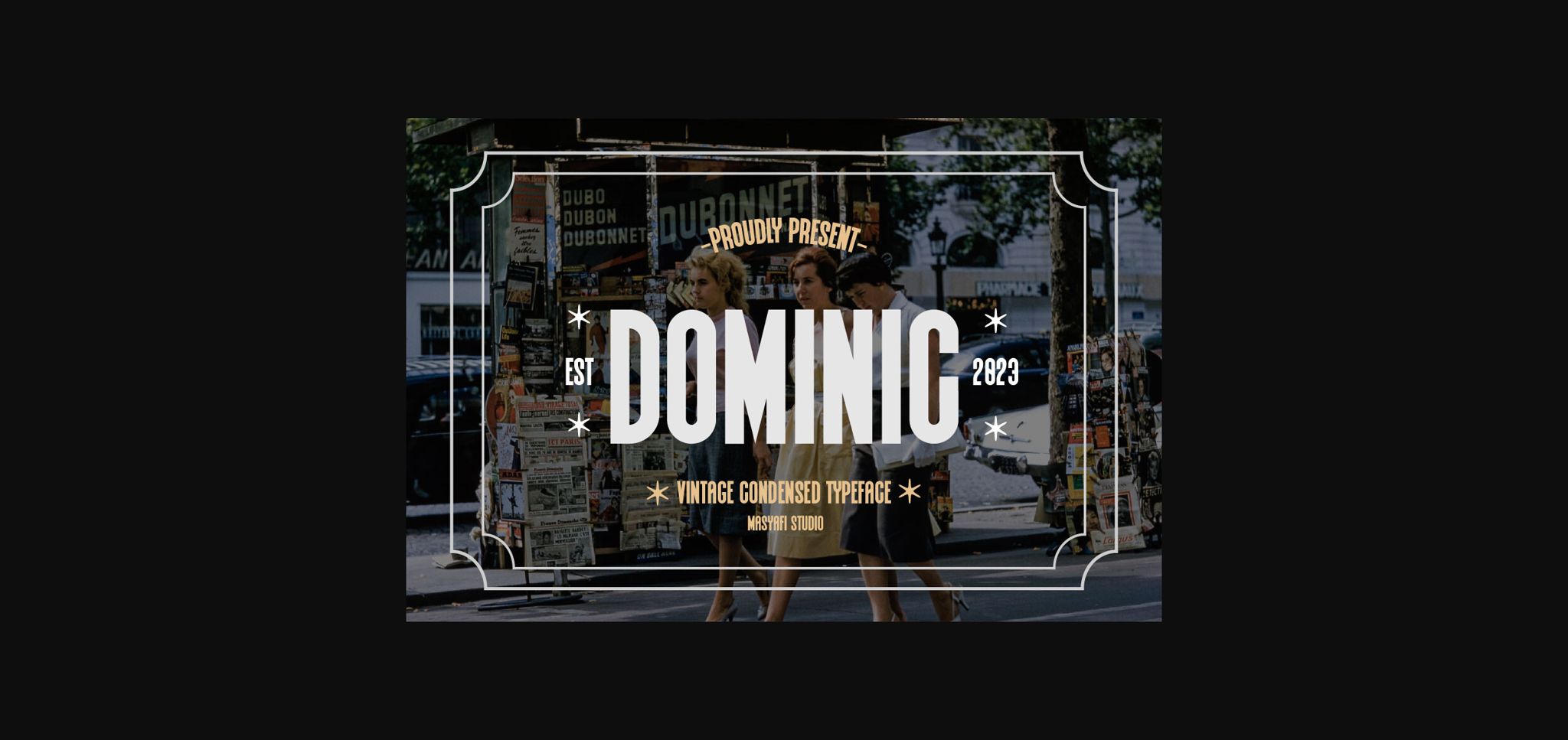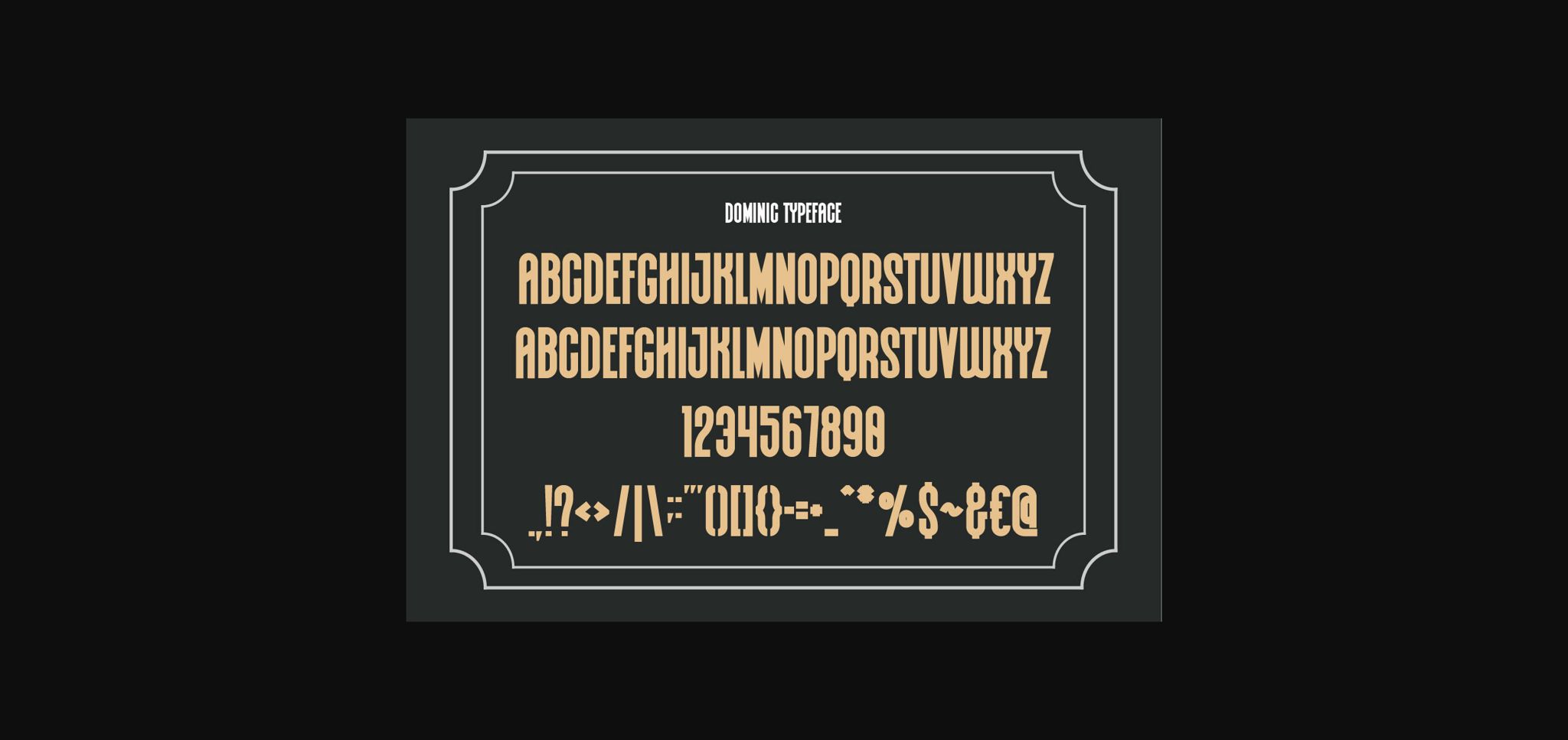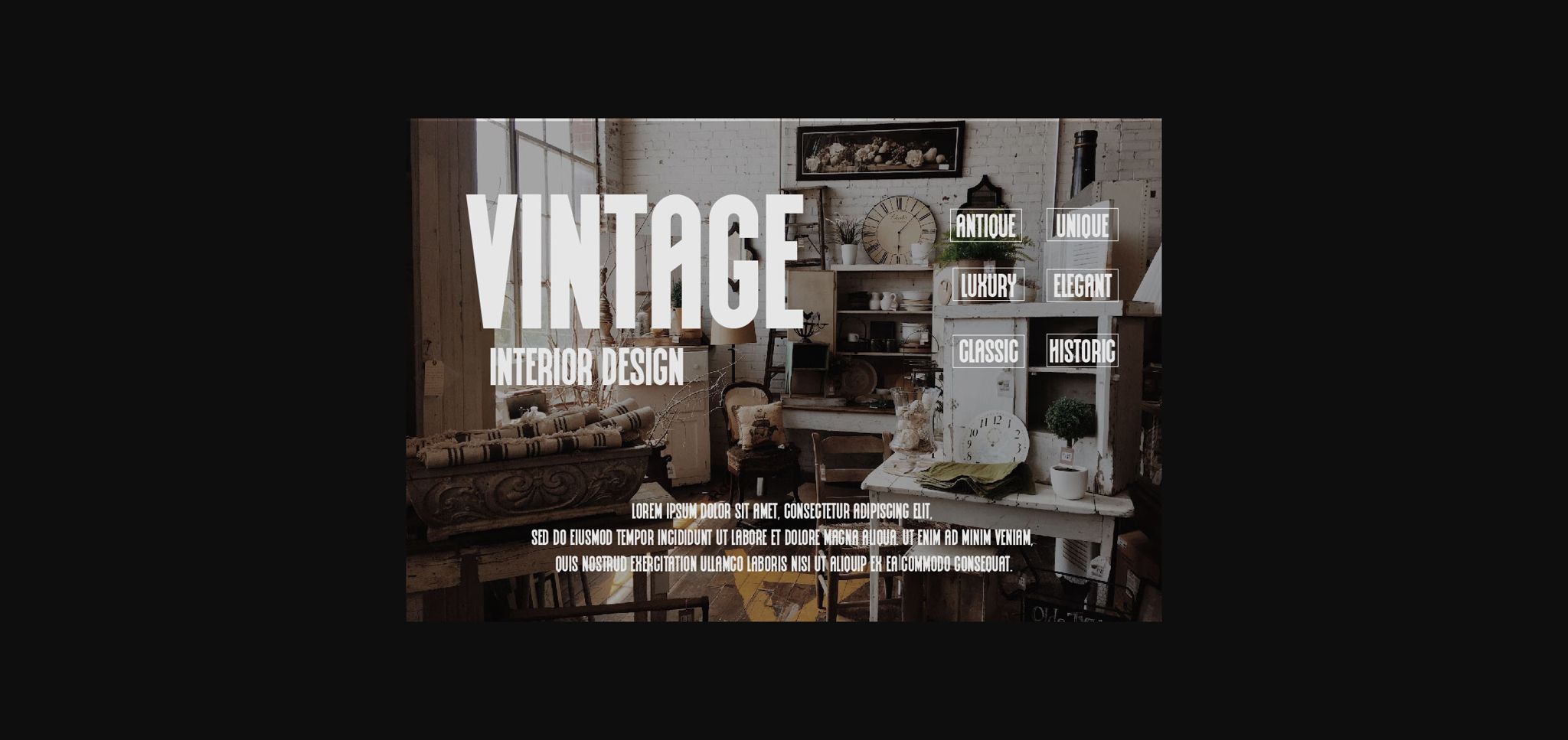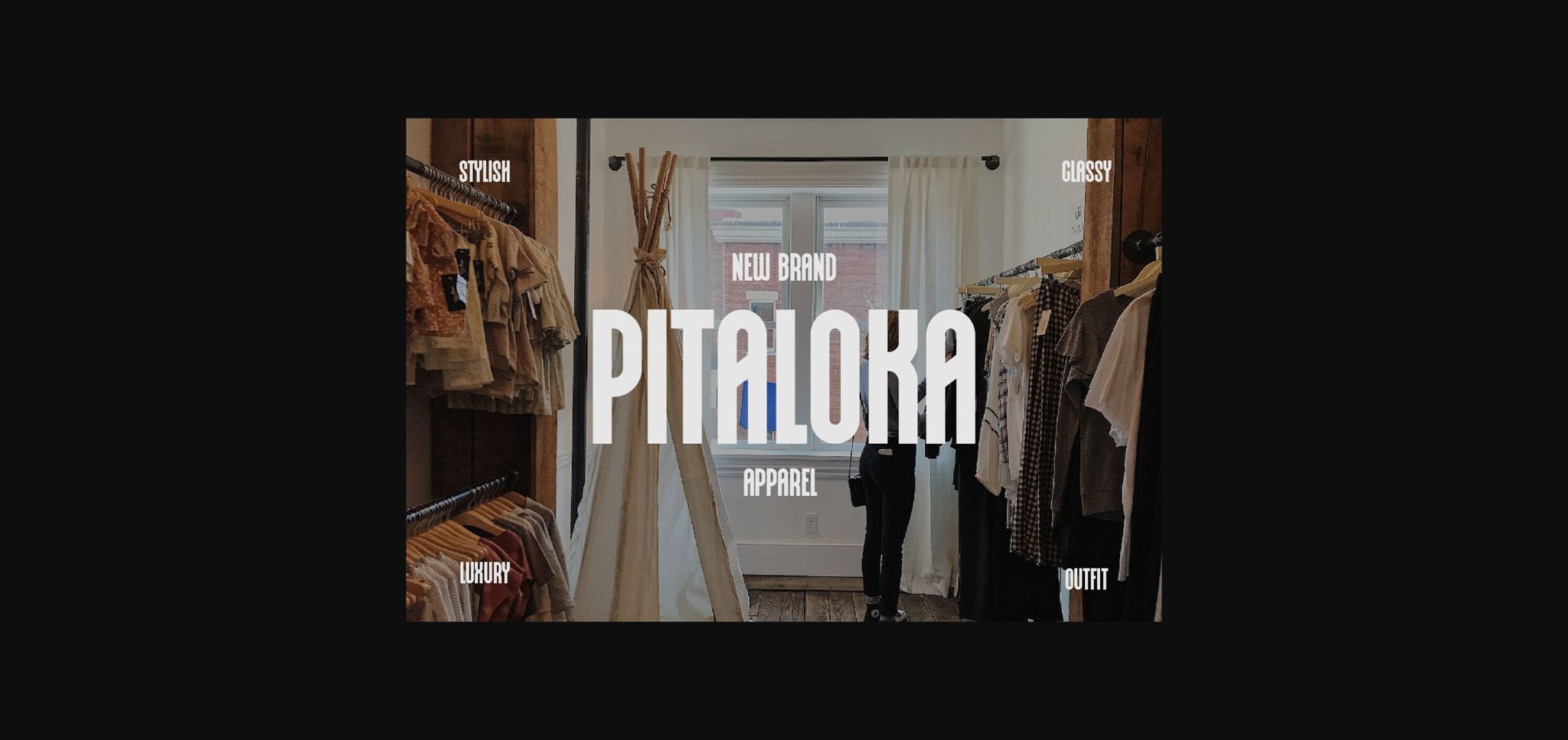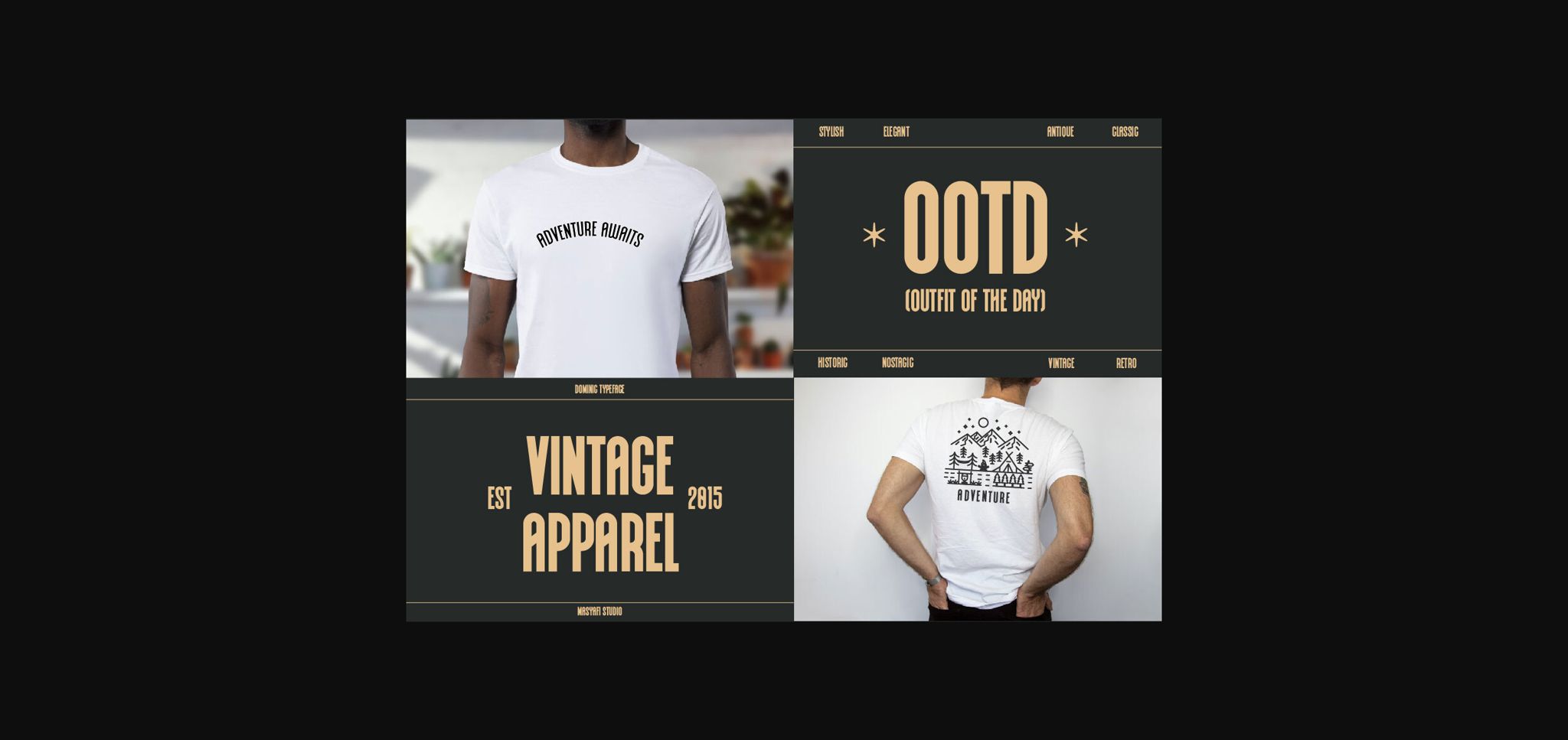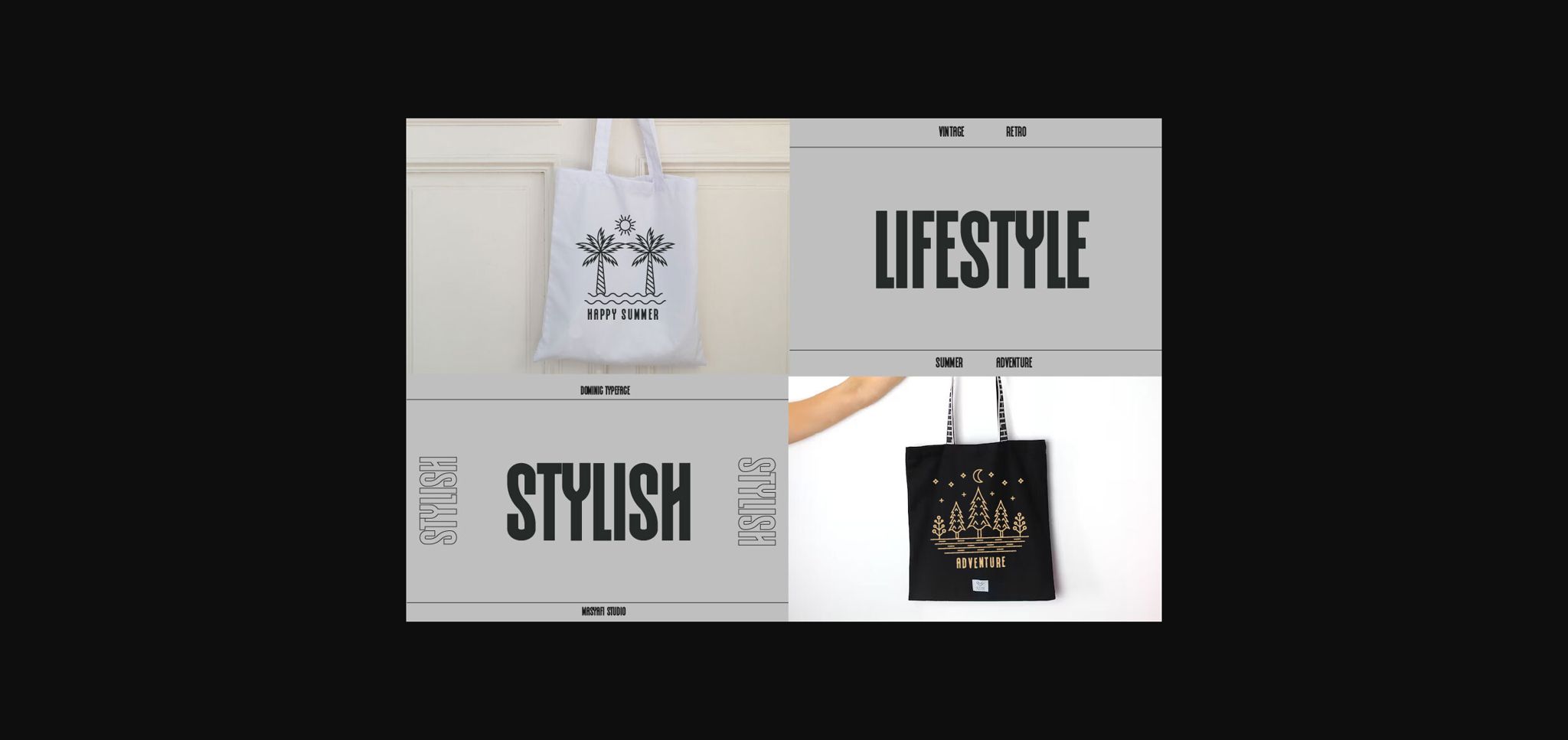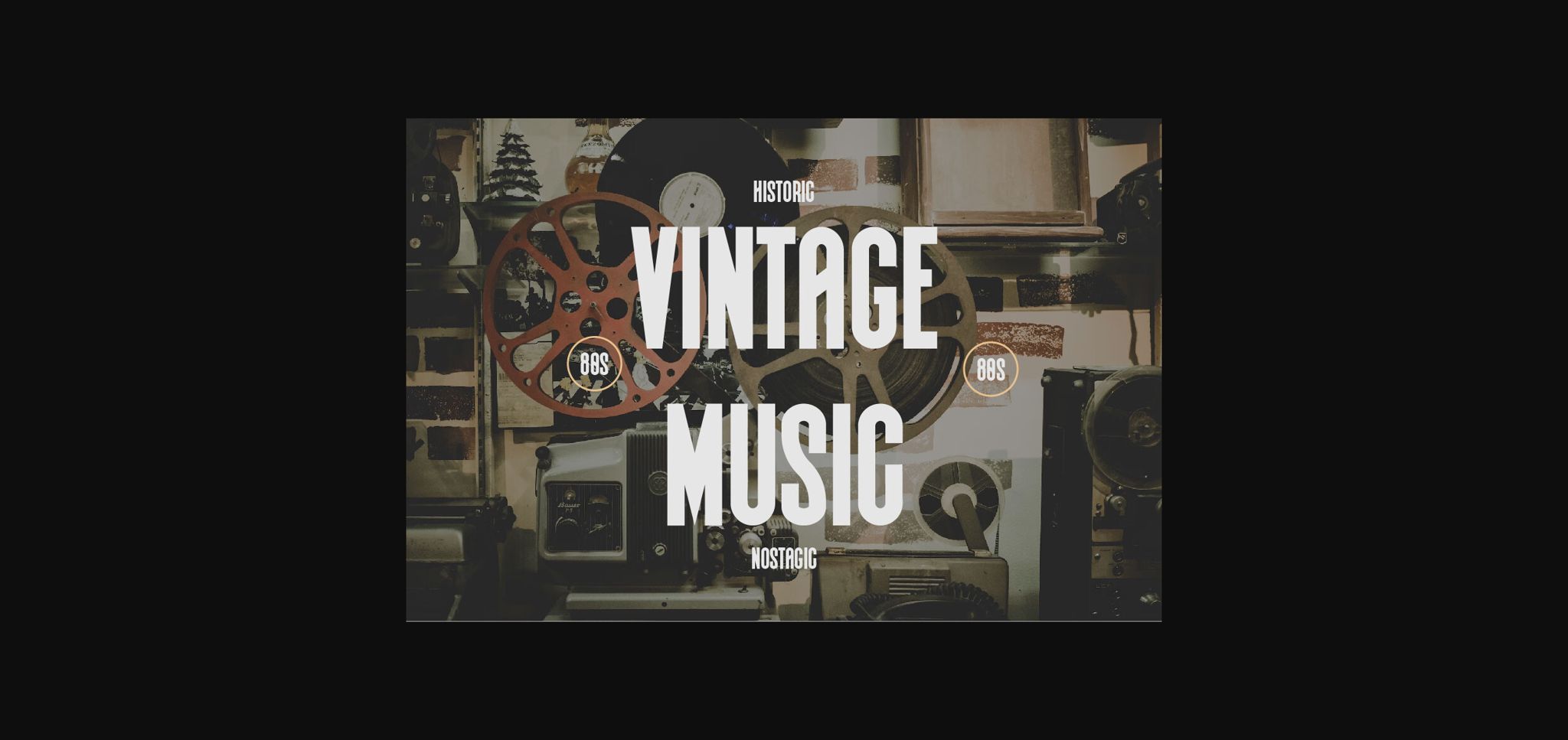
About Dominic Font
Introducing Dominic – Vintage Condensed Typeface
Vintage Condensed Typeface with a manly, gentle style. This font is cool for t-shirts, quotes, tote bags, headlines, overlays, etc.